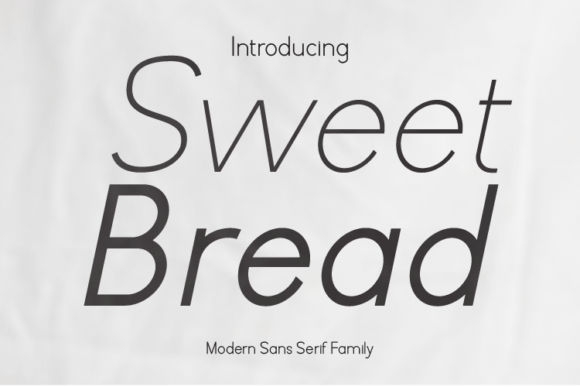
Adorn your creations with the enchanting Sweet Bread font, a sans serif masterpiece crafted to make your designs dazzle. Its graceful curves and refined edges dance across the page, evoking a sense of elegance and modernity. Dive into the world of Sweet Bread and discover the endless possibilities it offers.
With its sweeping strokes and delicate lines, Sweet Bread exudes sophistication and charm. Whether you're designing wedding invitations, social media posts, or crafting stunning logos, this font adds a touch of magic to every project. Its versatility extends to branding, stationery, and more, making it a must-have for any creative toolbox.
Step into a realm of creativity where your designs take center stage. Sweet Bread's allure captivates, leaving a lasting impression on your audience. Imagine your wedding videos, transformed into cinematic masterpieces with titles that flow effortlessly, drawing viewers into a world of romance and elegance. Its timeless beauty transcends trends, ensuring that your creations remain captivating for years to come.
Beyond its aesthetic appeal, Sweet Bread offers functionality like no other. Its crisp, legible characters ensure readability across various platforms, making it perfect for digital and print projects alike. Whether you're crafting website designs or creating eye-catching presentations, Sweet Bread delivers clarity and impact.
Indulge in the versatility of Sweet Bread and unlock a world of creative possibilities. From whimsical invitations to sleek logos, this font becomes an extension of your imagination, effortlessly adapting to your design vision. Its ability to blend seamlessly with other fonts and elements makes it the perfect complement to your existing design arsenal.
Join the ranks of creative visionaries who have embraced Sweet Bread's allure. Let your designs blossom with a font that speaks volumes, capturing hearts and imaginations. It's time to turn your creative dreams into reality with Sweet Bread, the font that transforms the ordinary into the extraordinary. Embrace the beauty, embrace the power, and let Sweet Bread elevate your designs to new heights.